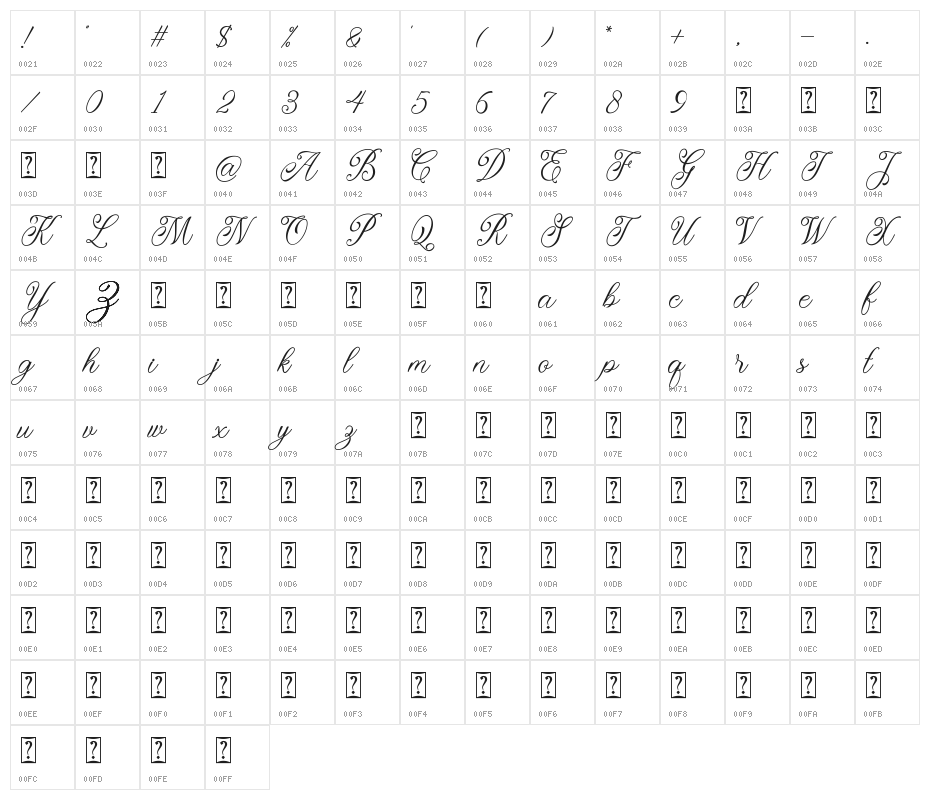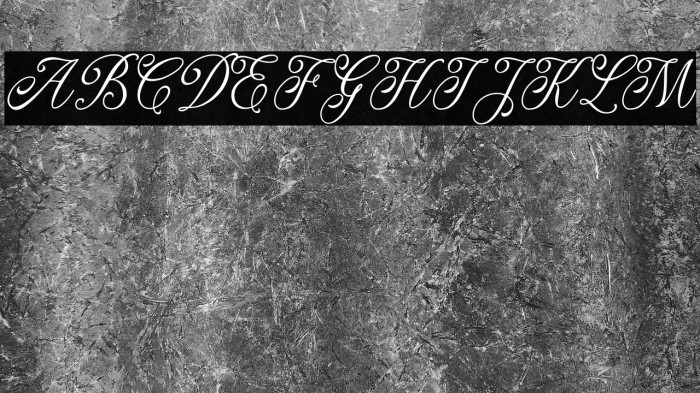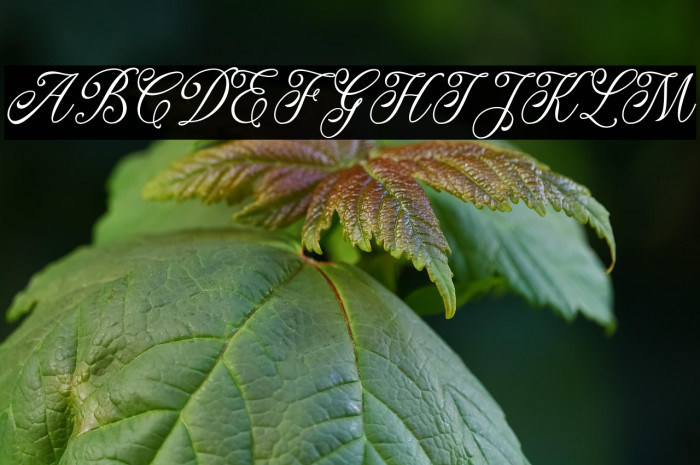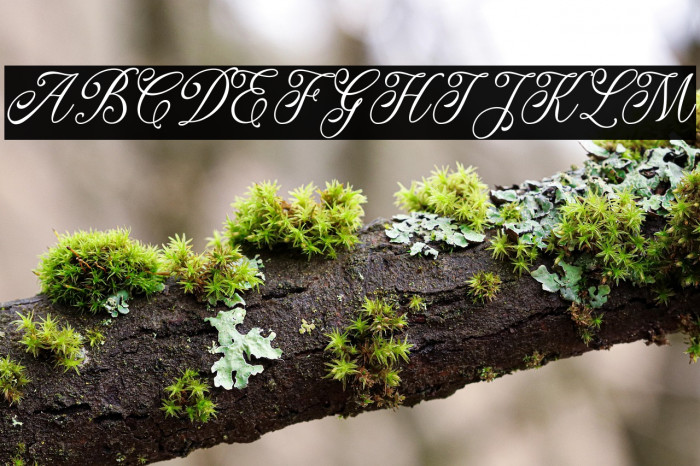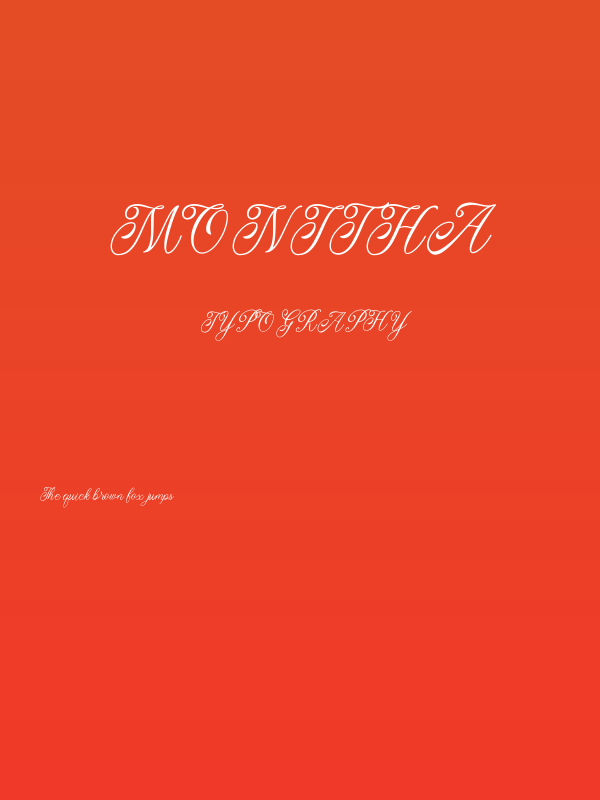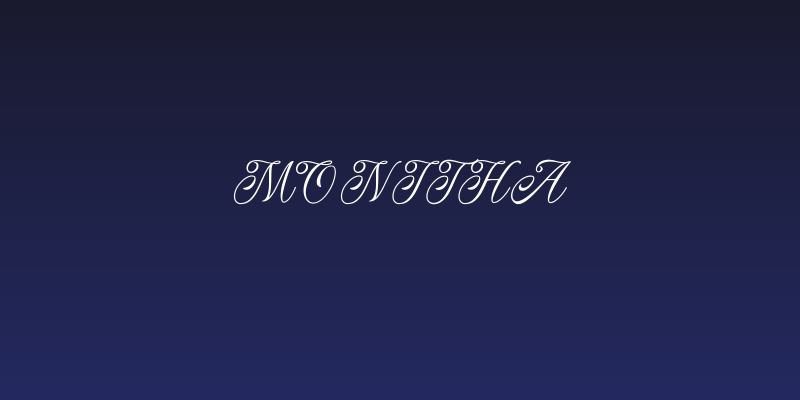
Monitha Font
Monitha Description
This elegant script font features fluid, cursive strokes that emulate the grace of handwritten calligraphy. Each letter is intricately designed with smooth curves and loops, creating a harmonious flow across the text. The uppercase letters are particularly ornate, with elaborate swirls that add a touch of sophistication. The lowercase letters maintain a consistent style, ensuring readability while preserving the font's decorative nature. The numerals and special characters are crafted with the same attention to detail, making them suitable for a variety of design applications. This font is ideal for projects that require a personal, artistic touch.
| Proposed Projects | Wedding invitations, greeting cards, branding, and logo design. |